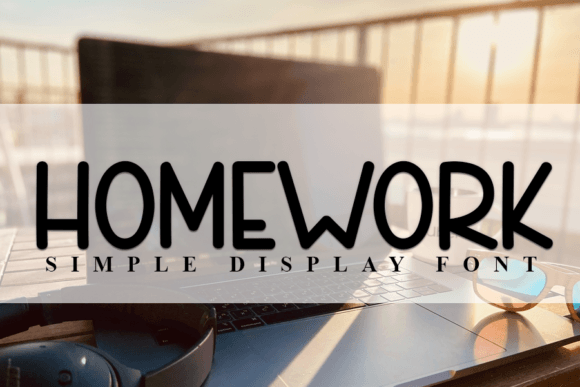
Homework Font Font: A Symphony of Modern Minimalism
Embark on a captivating journey through the world of modern typography with Homework Font Font, a remarkable display font that exudes sophistication and elegance. This typeface possesses an inherent artistic charm, adding a captivating touch to any project that demands attention.
With its meticulously crafted characters, Homework Font Font radiates a symphony of elegance and grace. Each letterform is a masterpiece of minimalism, designed to complement and enhance even the most basic designs.
Unleash Your Creative Genius
Homework Font Font is the perfect companion for creative visionaries seeking a font that mirrors their own unique style. Its clean lines and minimalist aesthetic provide a blank canvas for your imagination to run wild, allowing you to create breathtaking designs that resonate with your audience.
From sleek logos and branding elements to eye-catching social media posts and website headers, Homework Font Font is the ultimate tool for expressing your creative vision with unwavering confidence.
A Font for Every Occasion
Versatility is the hallmark of Homework Font Font. This extraordinary typeface adapts effortlessly to a myriad of design projects, making it an indispensable asset in your creative arsenal. Whether you're crafting a stunning wedding invitation, designing a sleek business brochure, or creating an unforgettable poster, Homework Font Font rises to the challenge, delivering exceptional results every time.
Experience the Elegance
Homework Font Font isn't just a font; it's an experience. Immerse yourself in the world of typography with this remarkable typeface, and discover the endless possibilities that await you.
Indulge in the beauty of Homework Font Font and elevate your designs to new heights of sophistication and grace.